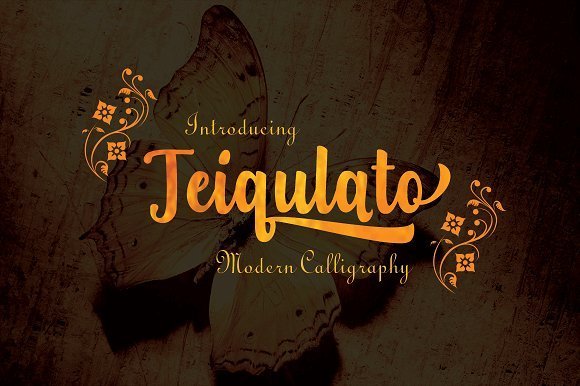
Teiqulato Calligraphy Font
Teiqulato is a calligraphy script with a perfection style of the letters you want to use, modern handwriting with many alternatives. Now this is an opentype! It’s smart and in line with your wishes!
You are welcome to use it, suitable for various purposes: logo, corporate symbol, wedding invitation, title, creative, t-shirt, business card, letterhead, nameplate, label, poster, news, badge, quotation, etc. Teiqulato Features 458 glyphs and alternative characters.